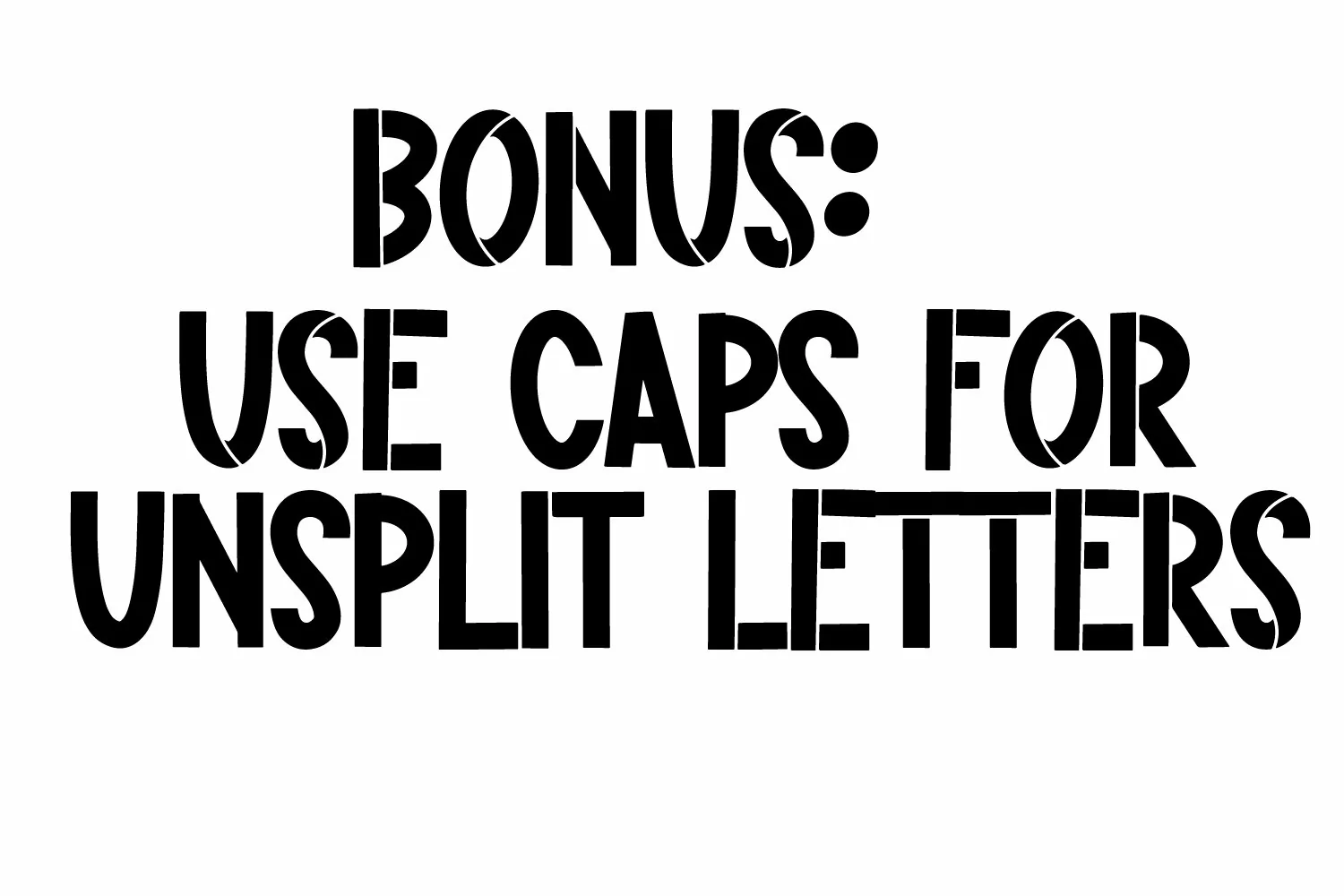
This fun new font is a little different - I split up the sections of each letter so that you can add a pattern or color change.
No actual patterns are included on this set - it is a standard font that you can add your favorite patterns to.
You'll need some sort of design program to separate the letters, so that you can pattern on top. :) PERFECT for sublimation type designs!
You can also use upper case to coordinate a non-split version in your design!
CLN-Tragic